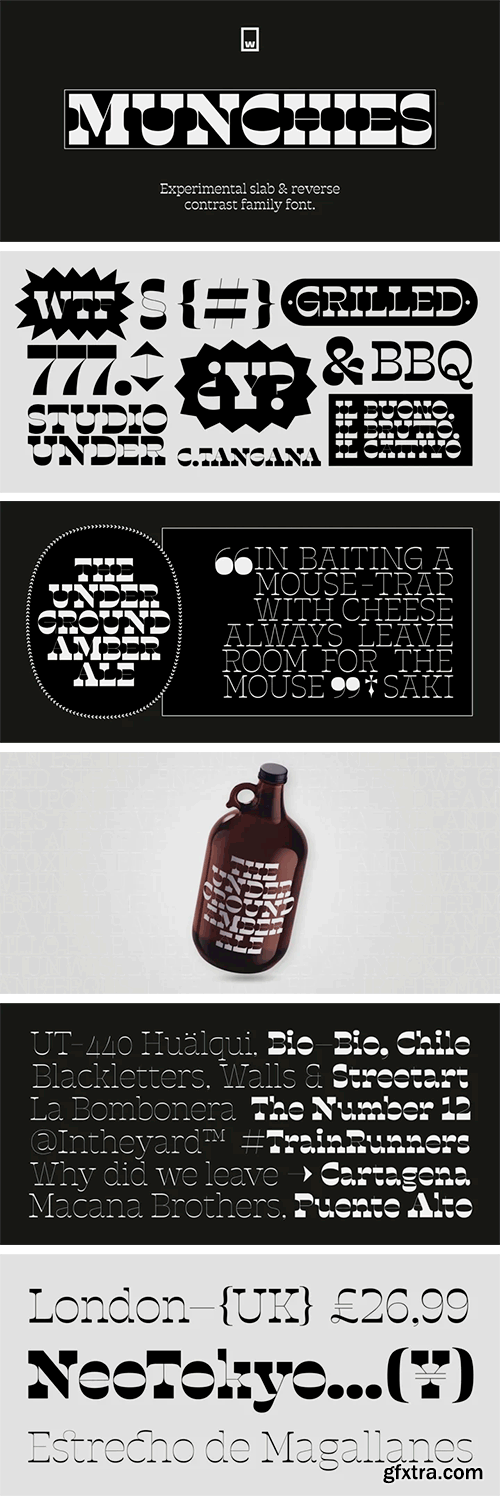
Munchies is a reverse contrast slab-serif font family. Inspired by the volume and size of 19th century wood letterpress blocks and the Italian Caslon language. Munchies has 12 variants, from Heavy to Thin, with opentype options in a set consisting of uppercase, lowercase, small caps, ligatures, and alternate letters (A, M, N, V, W, &, Arrows, *).